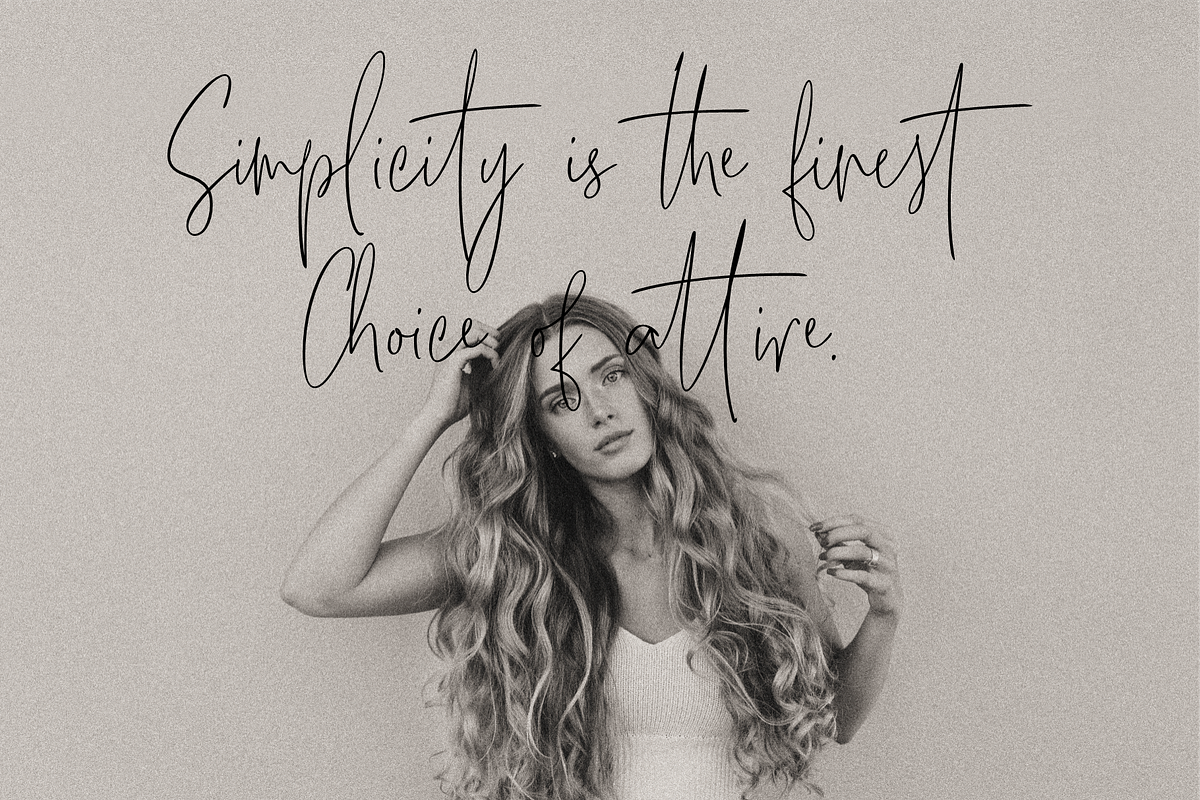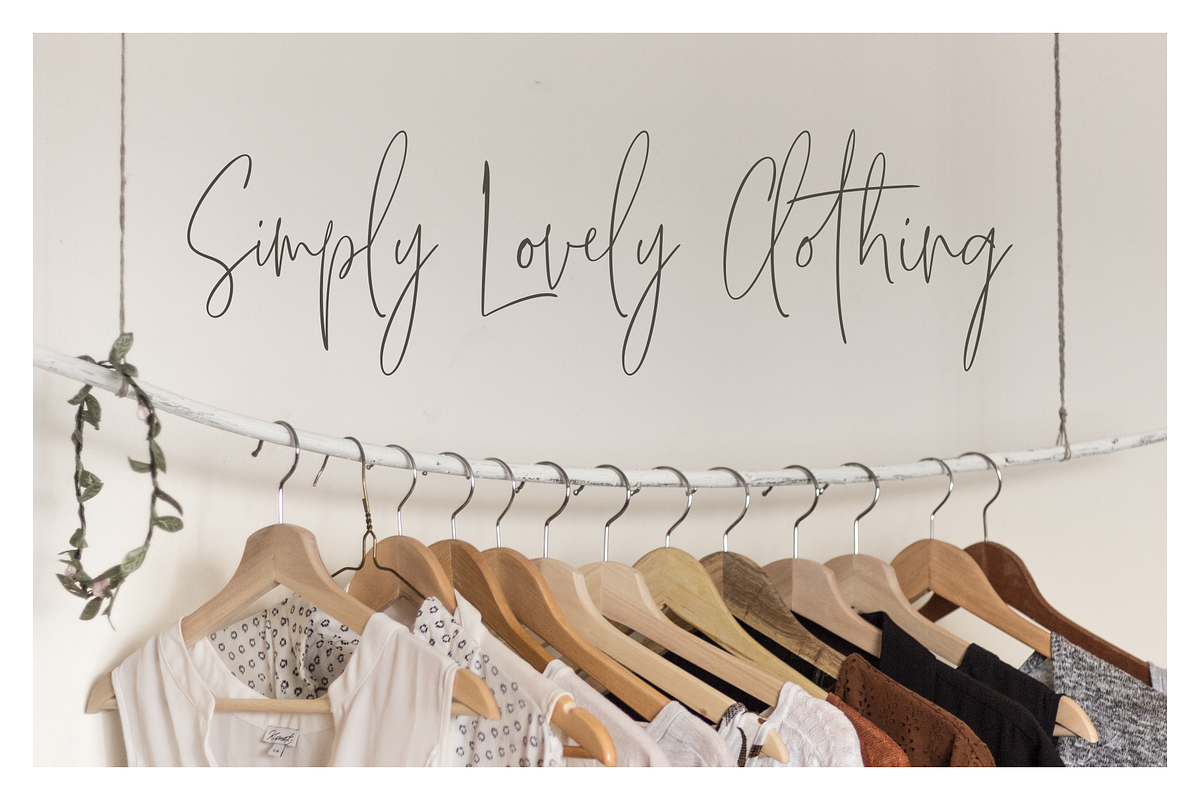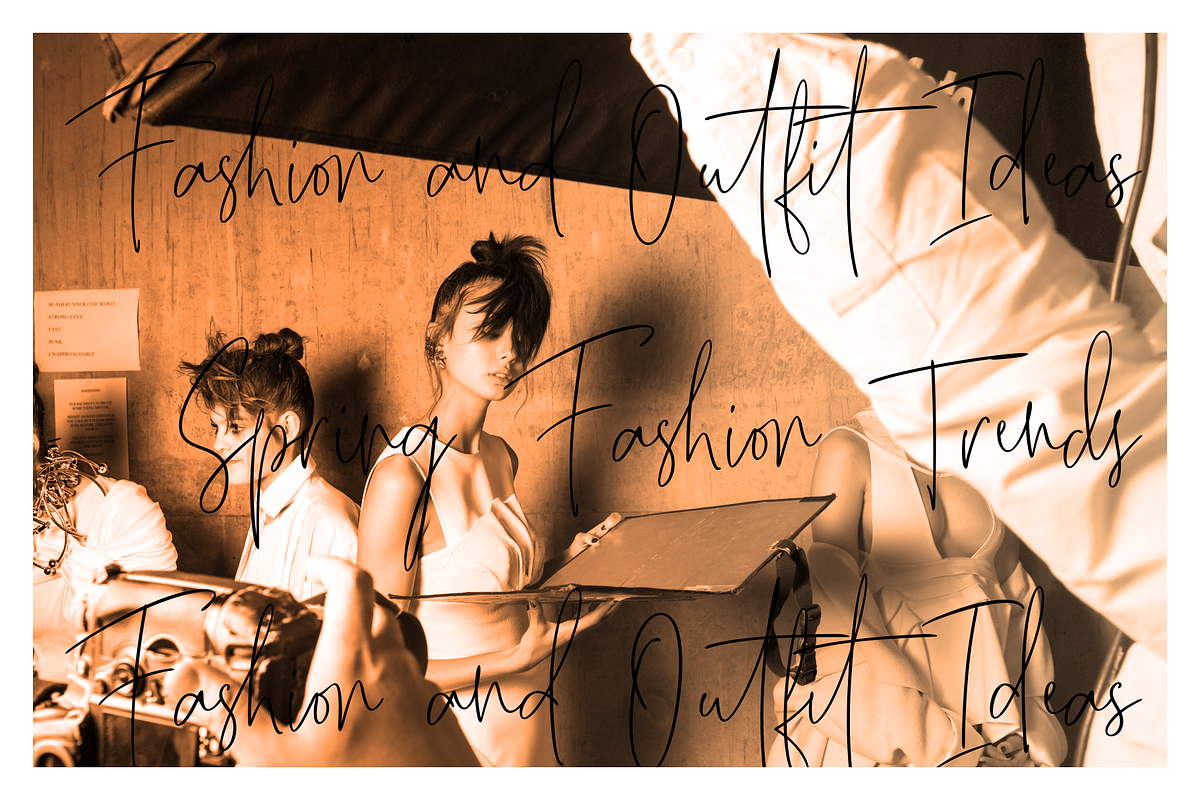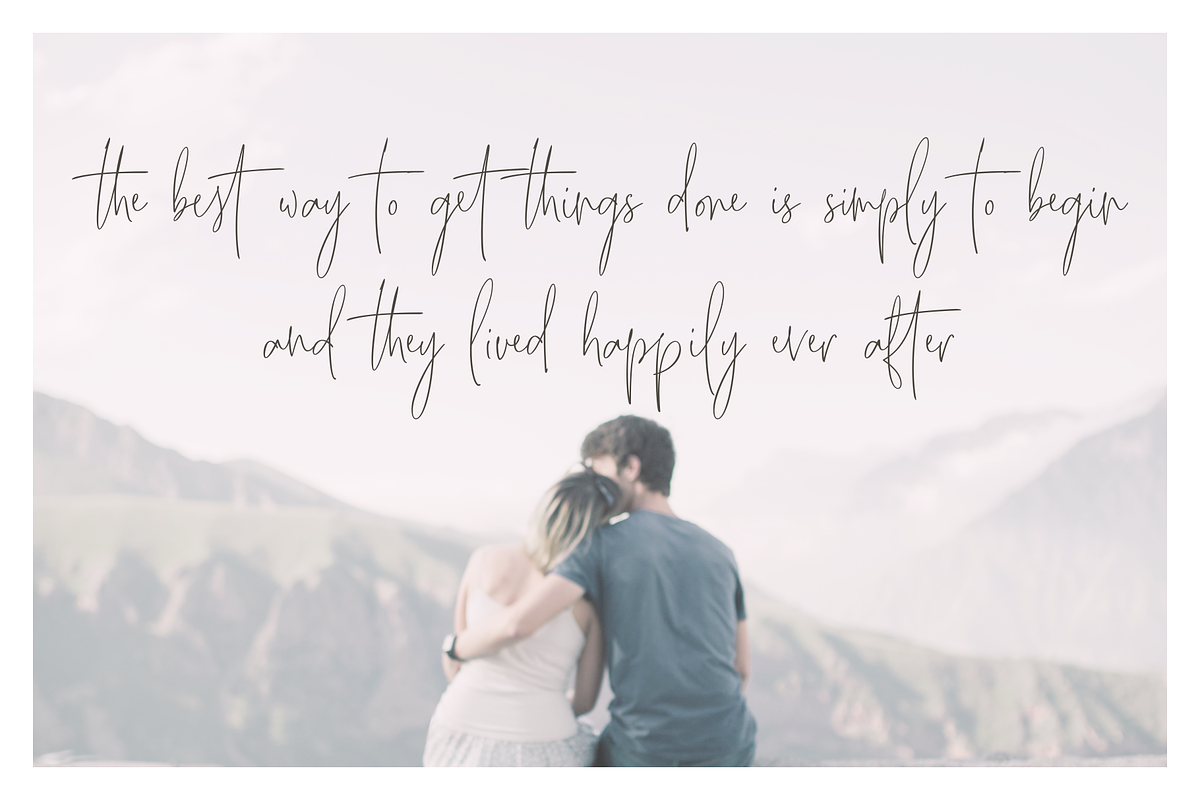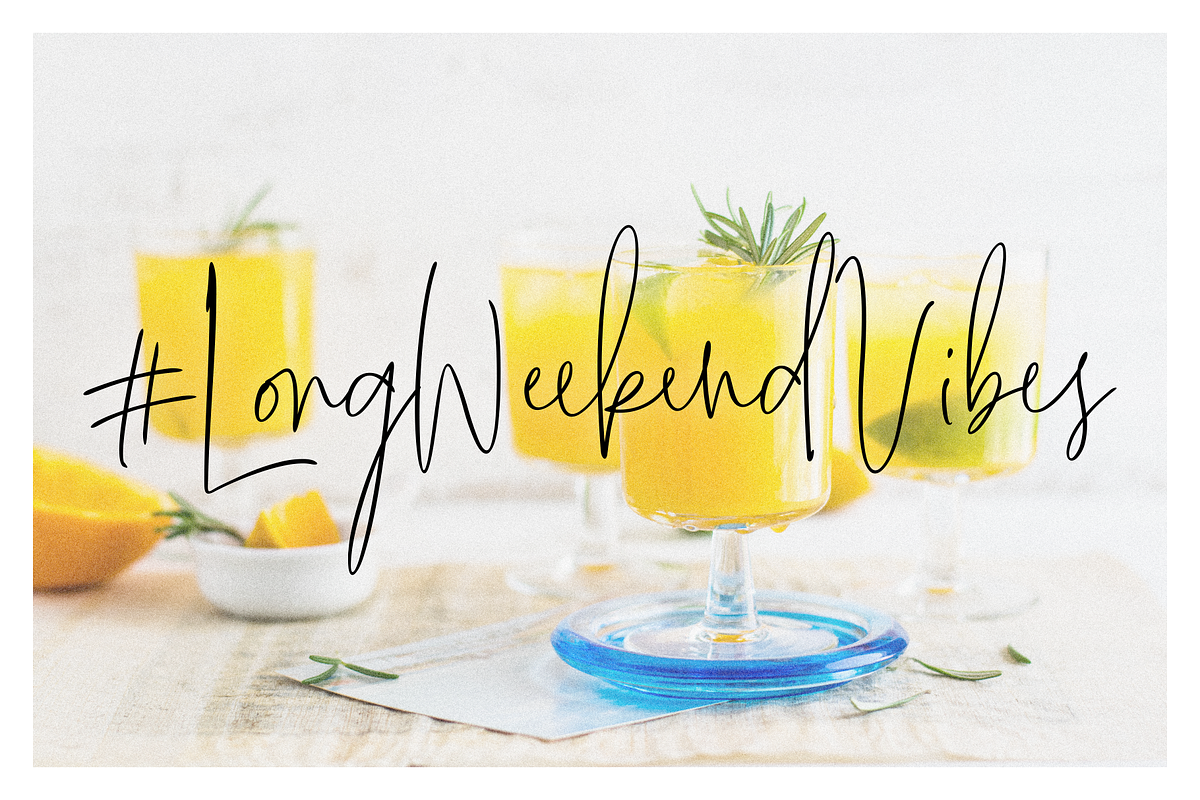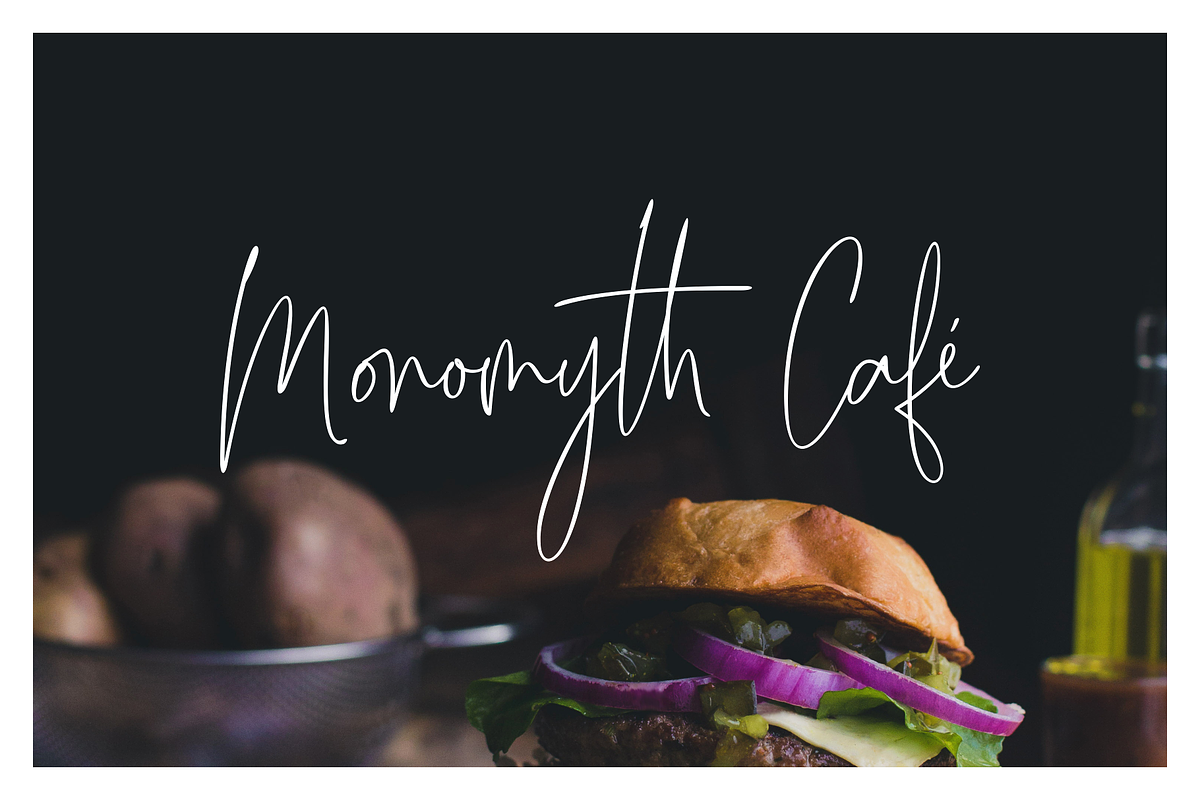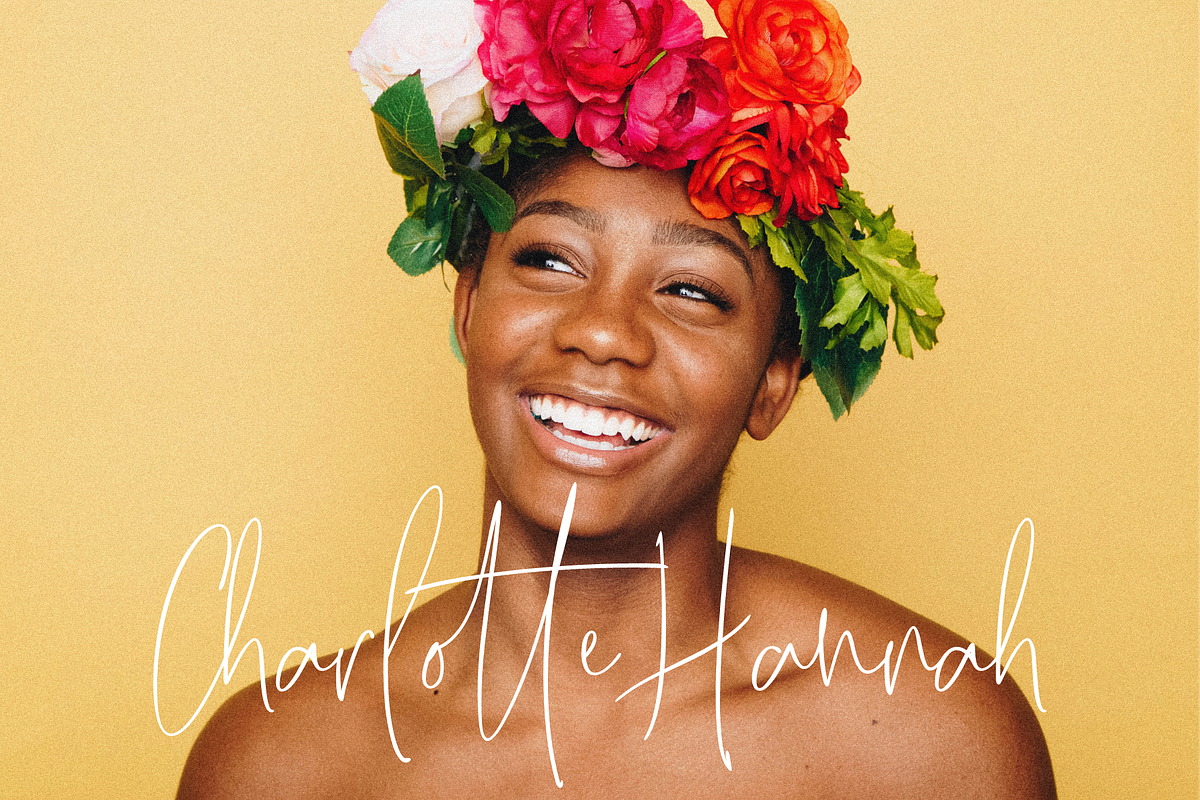
Super-tight - Modern Ligatures Fonts
Feast your eyes on a script font that is going to blow your skull off! Super-tight is all you need! Not only Super-tight is specially designed for branding yourself, but it also provides 86 gorgeous fancy ligatures exclusively. Each ligature is crafted carefully by hand; as a result, all single characters in Super-tight have an organic connection to the next character automatically, which gives you more inspiration for designing. There’s something unique and charming in this font, isn’t there? With Super-tight, you can create an extraordinary design project with ease. It’s super eeeeeasyyyy!!!
Super-tight features:
A full set of upper & lowercase characters
Numbers & punctuation
86 Gorgeous ligatures